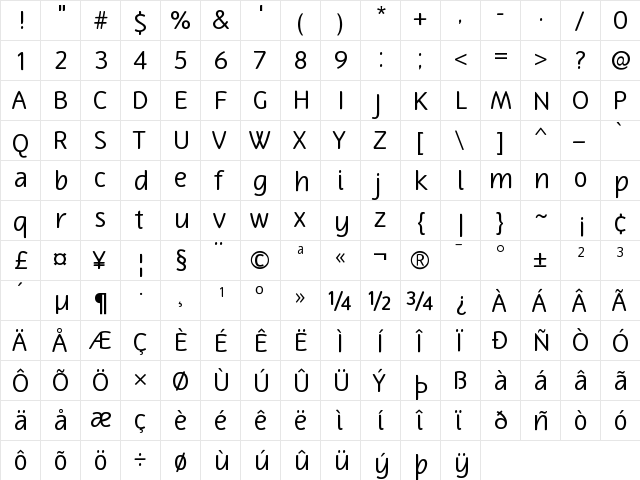
Terfens Regular
| Designer | Jeremy Dooley |
Design Context for Terfens Typeface
Terfens takes a measured approach to typography — its balanced proportions and neutral character make it a reliable workhorse for both digital and print work.